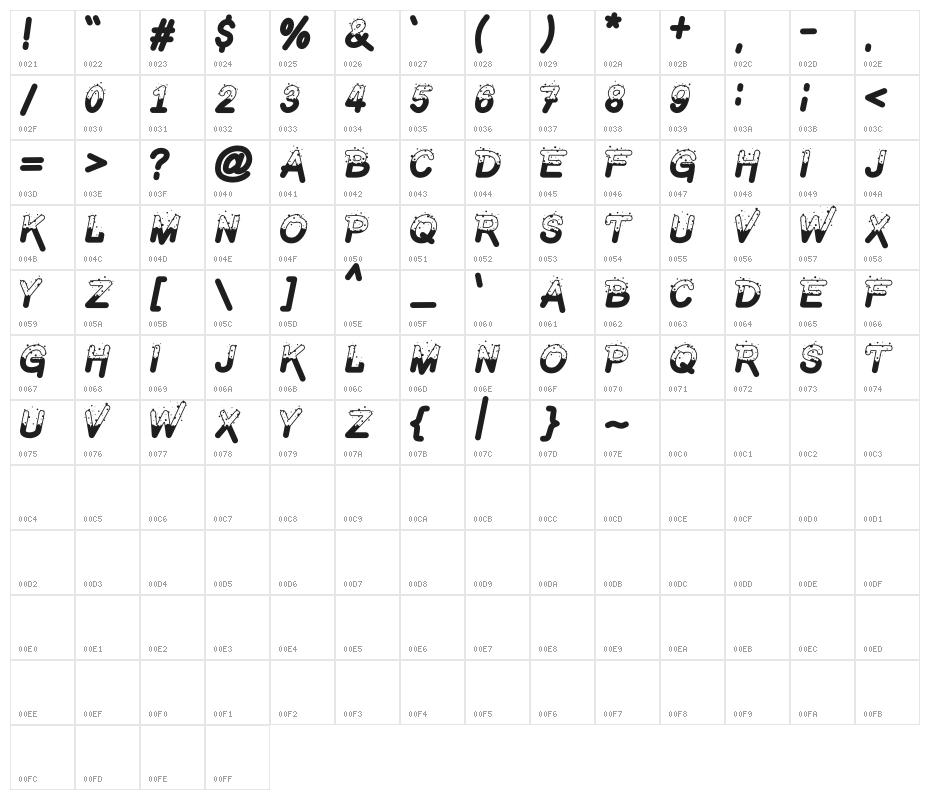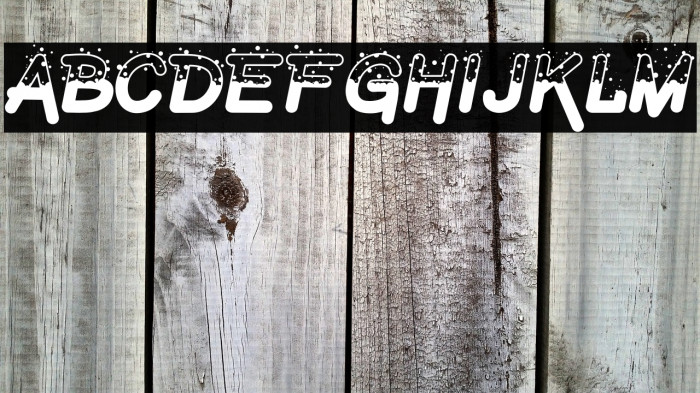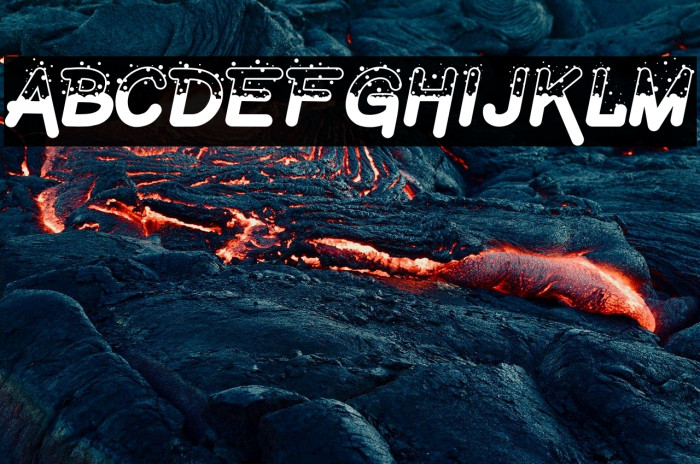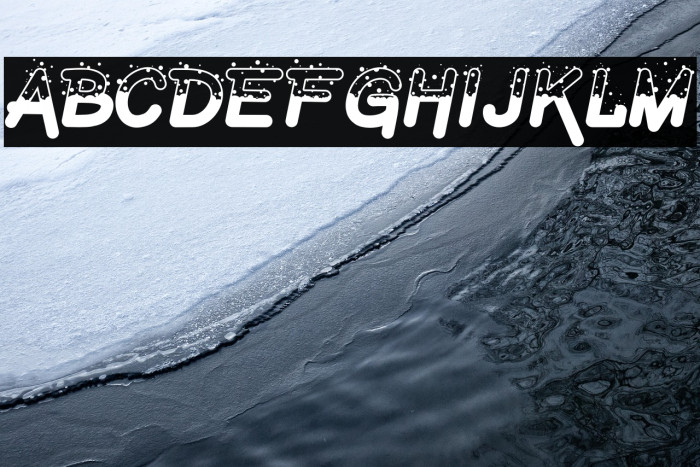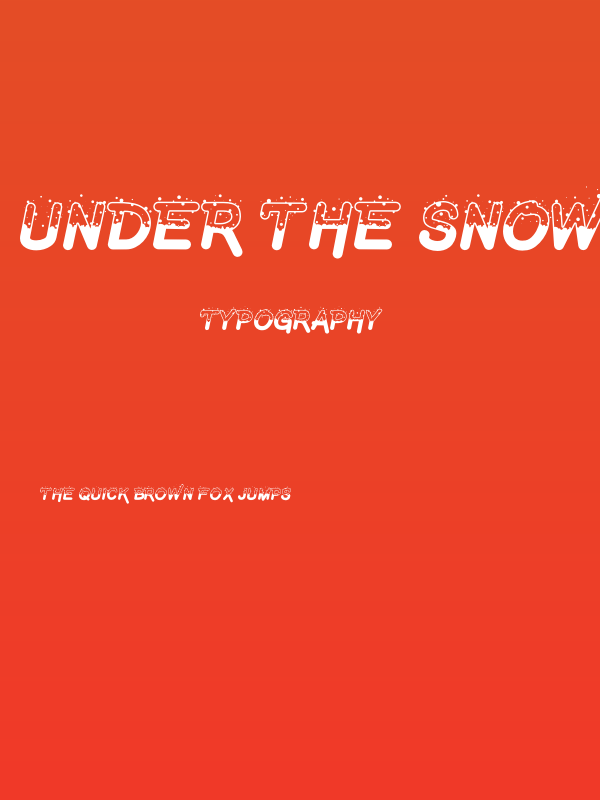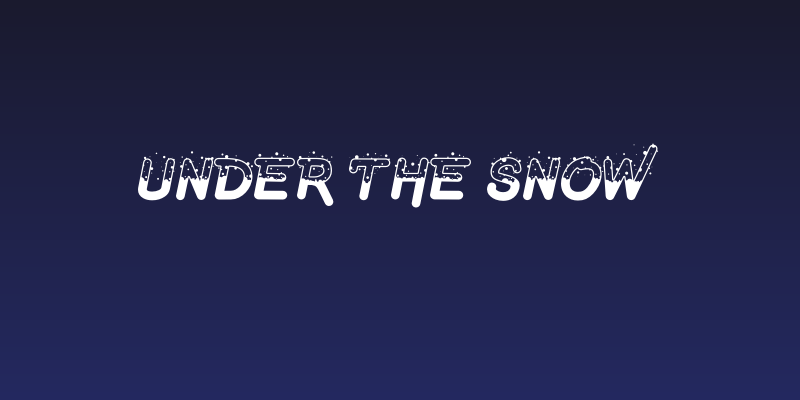
Under The Snow Font
Under The Snow Description
This playful and decorative font features a unique snow-capped design on each character, giving it a whimsical and festive appearance. The uppercase and lowercase letters, along with numbers and special characters, are bold and rounded, with a distinct contrast between the thick main strokes and the delicate snow-like embellishments on top. The style is consistent across all characters, maintaining a cohesive look that is both eye-catching and fun. The font's design is reminiscent of winter and holiday themes, making it ideal for seasonal projects. Its boldness ensures readability while the decorative elements add a touch of charm and creativity.
| Proposed Projects | Ideal for holiday cards, winter-themed posters, festive invitations, and playful branding. |